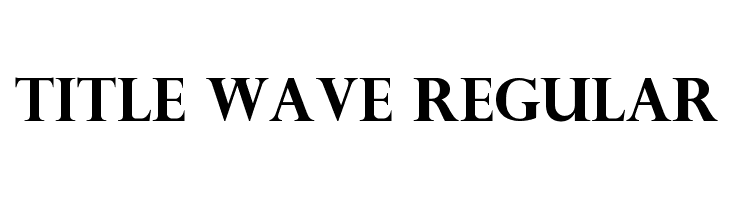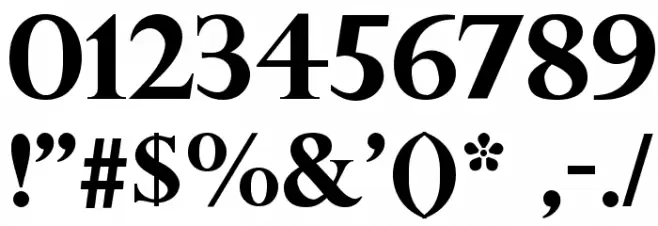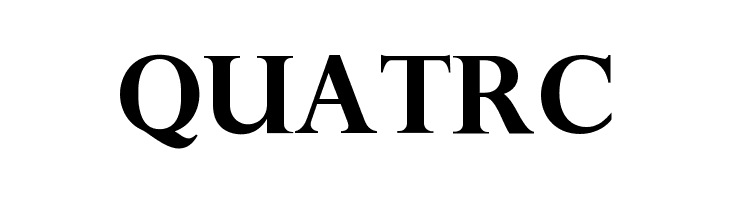
Title Wave Regular Font
Title Wave Regular Description
This font features a bold and classic serif style, characterized by its strong and elegant strokes. The uppercase letters are well-defined with sharp serifs, giving a sense of authority and tradition. The lowercase letters maintain a consistent style, offering a harmonious blend with the uppercase. The numerals are clear and robust, making them suitable for impactful displays. Special characters are designed with the same attention to detail, ensuring consistency across all glyphs. This font's overall appearance is both timeless and versatile, making it suitable for a variety of design applications.
A bold, classic serif font with strong, elegant strokes from Uncategorized fonts.
- Proposed Projects: Ideal for book covers, editorial design, branding, and formal invitations.
- Overall Style: Classic